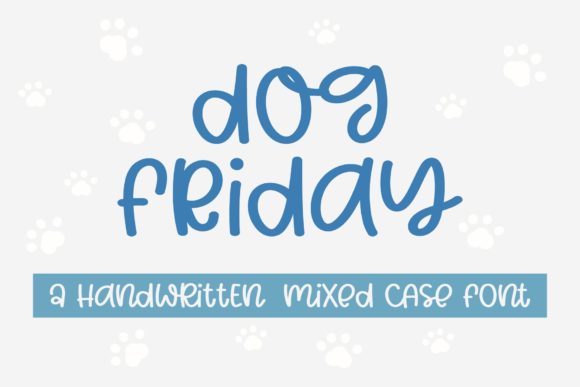
Prepare to Be Mesmerized by Dog Friday: The Whimsical Script Font That Unleashes Your Creative Spirit!
Embark on a typographic adventure with Dog Friday, a captivating handwritten font that dances across your designs with its playful and spontaneous charm. Inspired by the carefree spirit of a Friday afternoon, this font embodies the essence of creativity and imagination.
Unleash the boundless potential of Dog Friday, the ultimate font for T-shirt Reddit designs. Let your designs take center stage, adorned with the unique and eye-catching characters of Dog Friday. Its whimsical nature adds a touch of playfulness to your creations, making them stand out from the crowd.
Journey into a realm of endless possibilities with Dog Friday. Its versatility knows no bounds, making it the perfect companion for an array of projects. From enchanting logos that captivate audiences to heartfelt invitations that warm hearts, Dog Friday effortlessly elevates your designs to new heights.
Immerse yourself in the world of Dog Friday and let your imagination run wild. Its natural and organic flow brings a touch of authenticity to your designs, making them resonate with your audience on a deeper level. Experience the magic of Dog Friday and unlock the true potential of your creative vision.